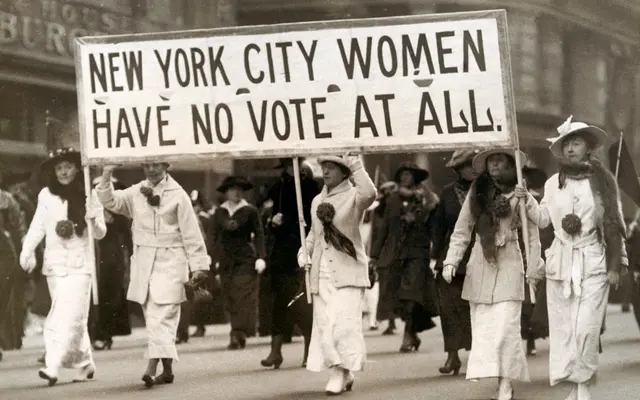
A display typeface inspired by the lettering of American women's suffrage campaigns, named after strategist and activist Carrie Chapman Catt.
Named after Carrie Chapman Catt, the suffragist who led the 1915 Fifth Avenue parade and steered the Nineteenth Amendment to ratification in 1920, this typeface draws on the visual language of early twentieth-century American political activism. Vocal Type's practice of grounding type designs in specific historical moments of social struggle gives Carrie a cultural weight beyond its letterforms. It suits editorial and campaign work where that historical reference is intentional.
The typeface is presented as a display face rooted in historical suffragist visual culture, likely drawing on period lettering from early twentieth-century American protest and political campaign materials.